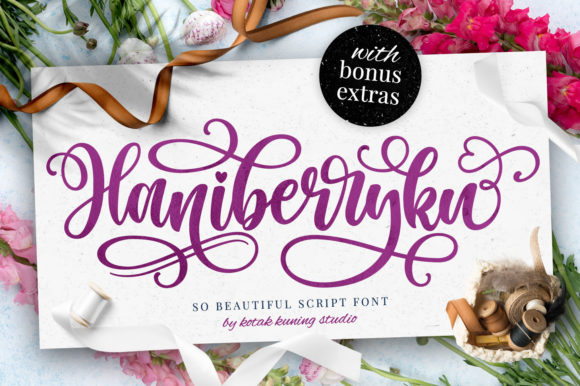
Immerse yourself in the enchanting world of Haniberryku Font, a captivating script font that exudes elegance and charm. With its graceful curves and smooth lines, Haniberryku adds a romantic and personal touch to any design project. Whether you're creating invitations, designing logos, or crafting handmade cards, Haniberryku effortlessly elevates your creations beyond the ordinary.
Journey into a world of whimsy and imagination with Haniberryku, the font that breathes life into your creative endeavors. Allow your designs to flourish with the delicate beauty of Haniberryku, transforming simple words into captivating expressions of art. Its versatility knows no bounds, adapting seamlessly to a wide array of projects, from heartfelt letters to enchanting social media posts.
Embrace the cinematic allure of Haniberryku, the font that captures the essence of motion and emotion. Its flowing characters evoke the grace of a dancer, inviting you to weave intricate tales and heartfelt messages. Engage your audience with the visual symphony of Haniberryku, leaving a lasting impression that lingers long after the final word is read.
Haniberryku is not merely a font; it's an extension of your creativity, a brush that paints emotion onto the digital canvas. Its organic and expressive nature invites you to pour your heart into every project, creating designs that resonate with authenticity and leave an indelible mark on the hearts of those who behold them.
Elevate your designs to new heights with Haniberryku, the font that ignites passion and fuels your imagination. Let your creativity soar as you explore the boundless possibilities of this captivating script font. Indulge in the beauty of Haniberryku today and embark on a creative journey unlike any other.